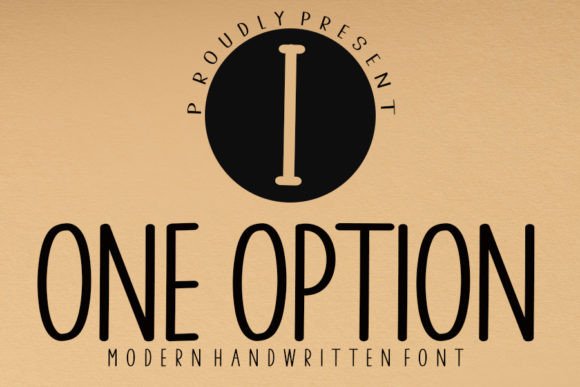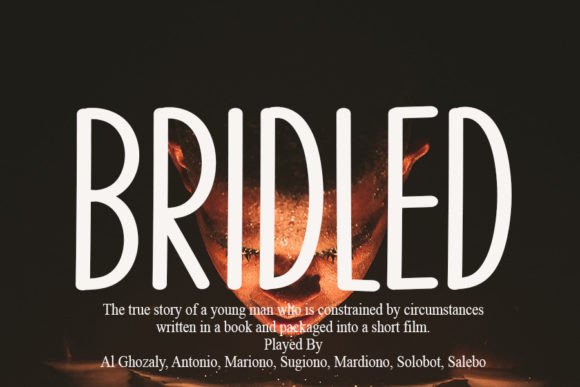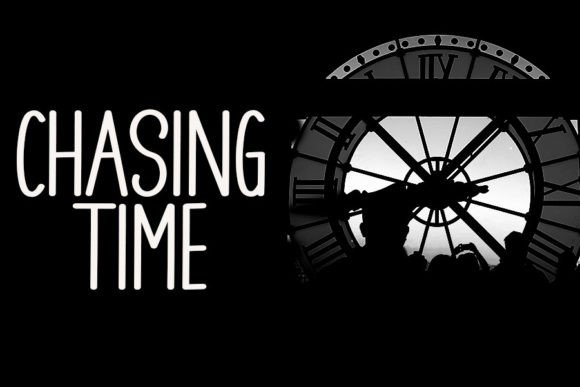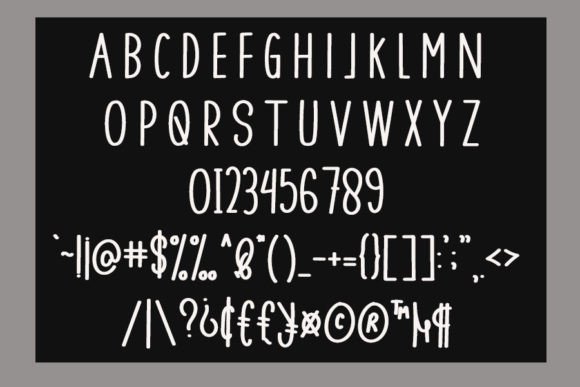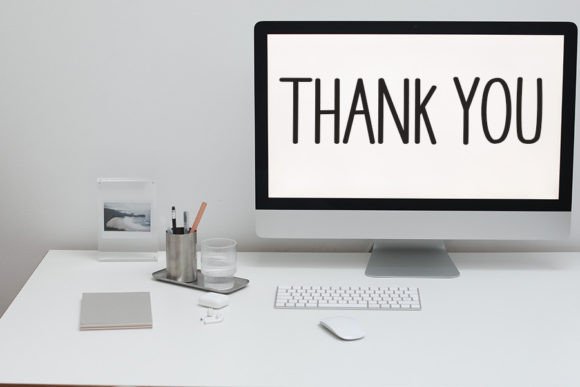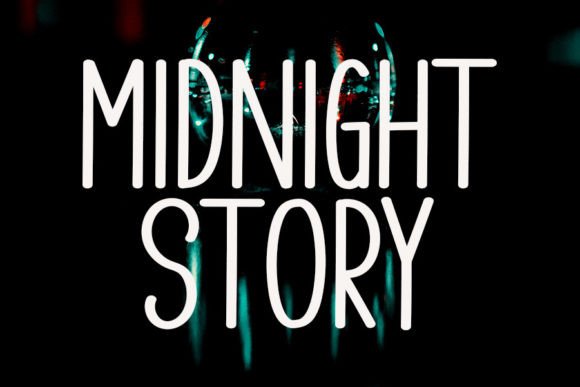
One Option Font
About One Option Font
One Option is a welcoming handwritten font, thoughtfully crafted to become a beloved favorite. Its friendly demeanor and careful design make it a standout choice, destined to enrich your font library and breathe life into all your creative projects.
This font’s friendly appeal is immediately apparent, creating a warm and approachable atmosphere. Each letter is meticulously designed to convey a sense of ease and friendliness, making One Option a versatile choice for a wide range of creative applications.
Adding One Option to your font library is akin to acquiring a valuable creative tool. Its adaptability ensures that it can seamlessly integrate into various design projects, from branding and marketing materials to invitations and digital content. This font becomes a reliable companion, enhancing the visual appeal of your work with its charming personality.
Incorporating One Option into your designs is an invitation to creativity. Its handwritten charm brings a human touch to your projects, making them more relatable and engaging. Whether you’re working on lighthearted designs or projects that require a touch of informality, One Option rises to the occasion.
In summary, One Option stands as more than just a font; it’s a friendly and versatile design asset that breathes life into your creative endeavors. Embrace its warmth, add it to your font library, and watch as it transforms your projects, making them lively and inviting.